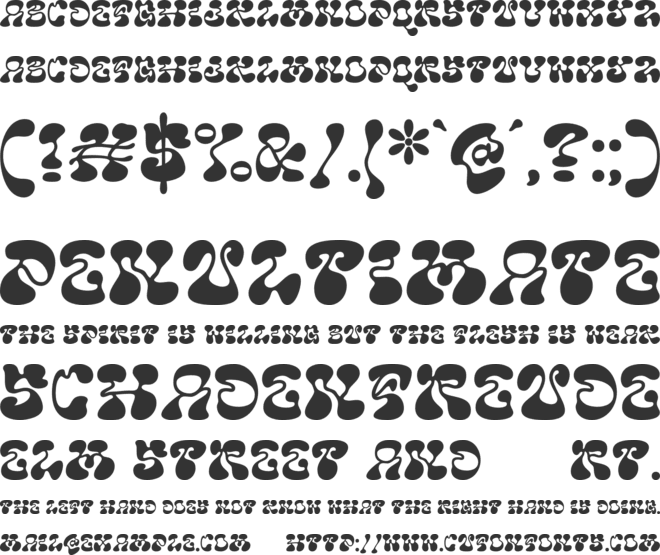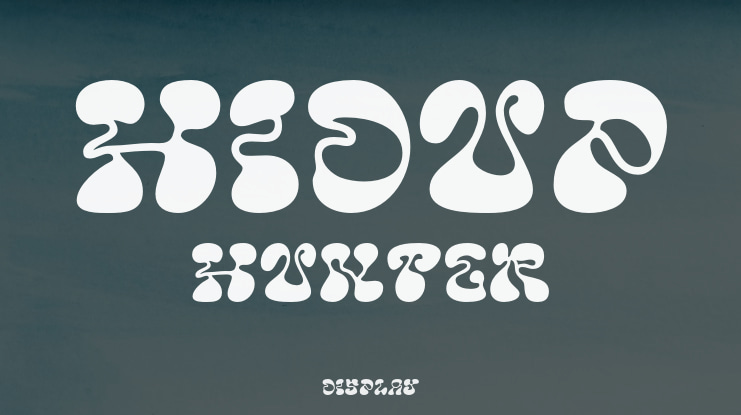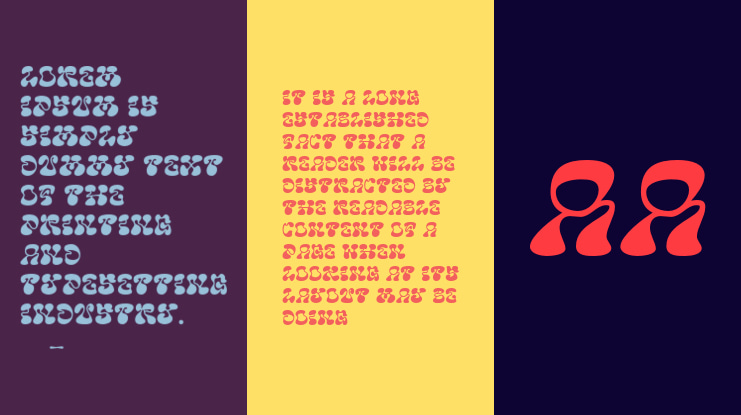
Hidup Hunter Font
Hannie Display Font - This font would be perfect for photography, watermarks, social media posts, advertisements, logos & branding, invitations, product design, labels, stationery, product packaging, special events, and other projects. This font is PUA encoded which means you can access all glyphs with ease!
Dantype